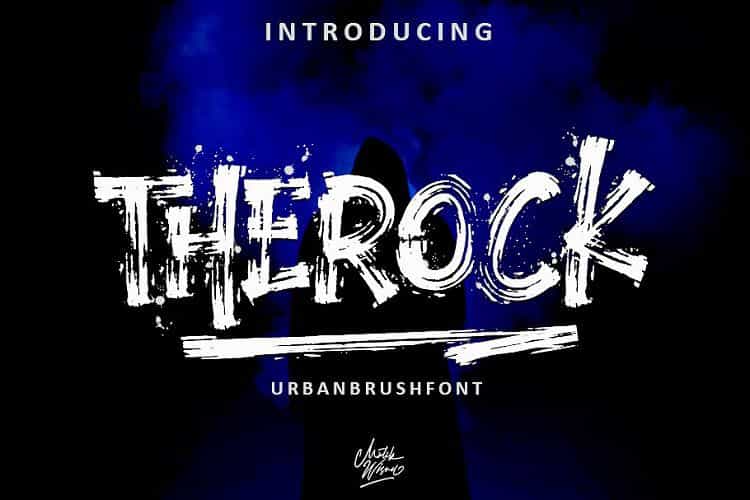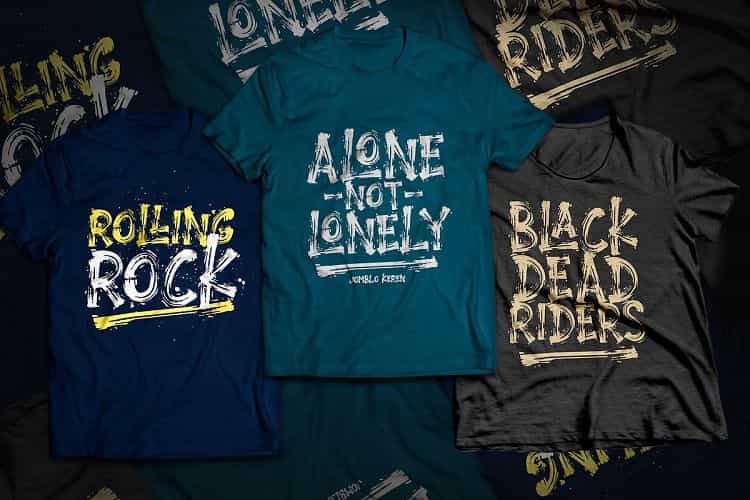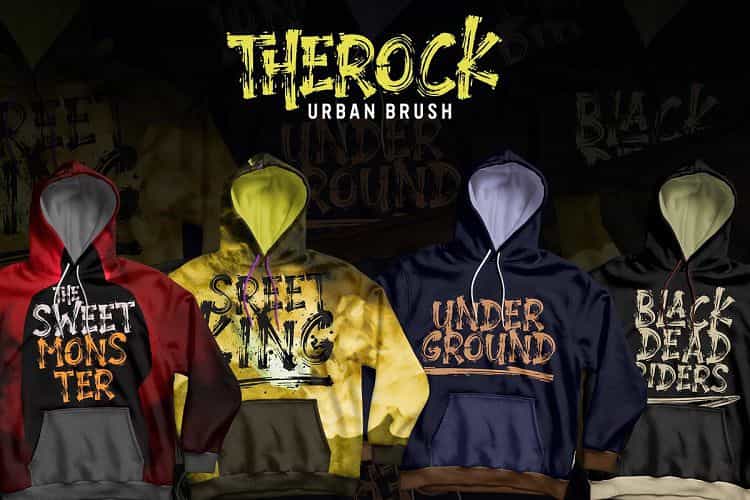
Introducing Therock Font. THEROCK Brush Font is a forceful, street smart brush font that emanates energy. By paying more attention to the fast strokes and sharp details, THEROCK is perfect for logos, apparel,T-shirt,Hoodie, quotes, product packaging or any other thing that needs a typographic turbo-boost.